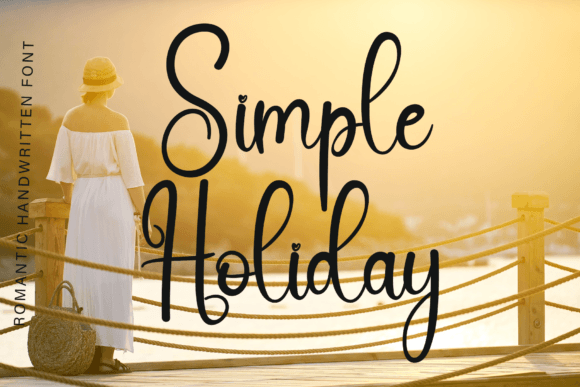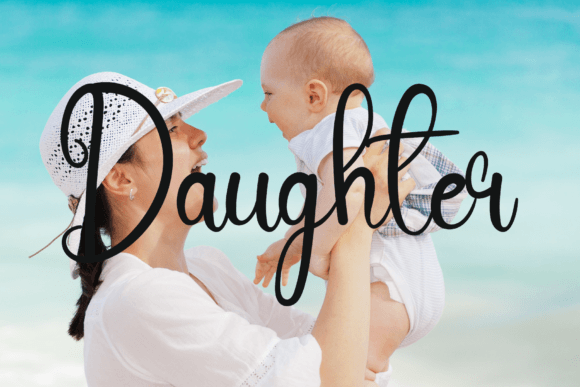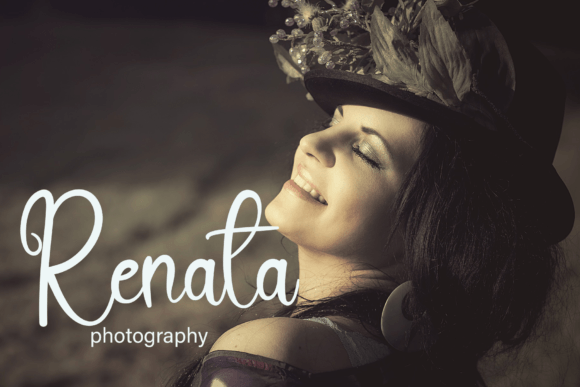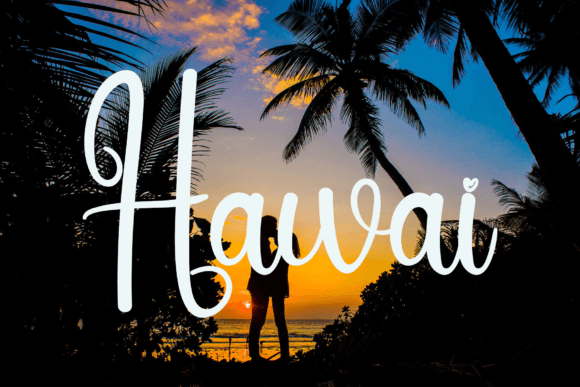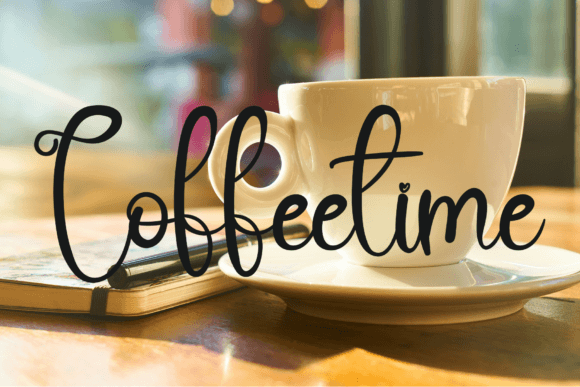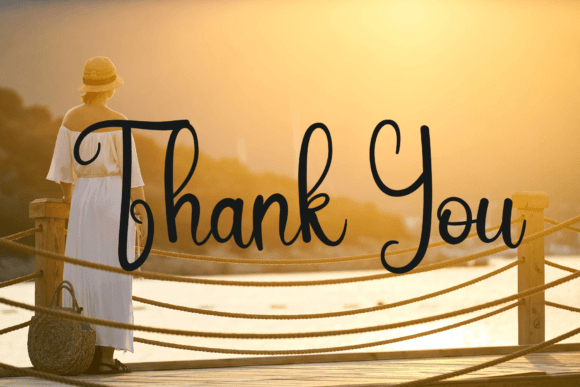
Simple Holiday Font
About Simple Holiday Font
Simple Holiday is a trendy handwritten font with a contemporary atmosphere and impeccable form, inspired by timeless classic calligraphy. It will add elegance and class to any of your design projects.